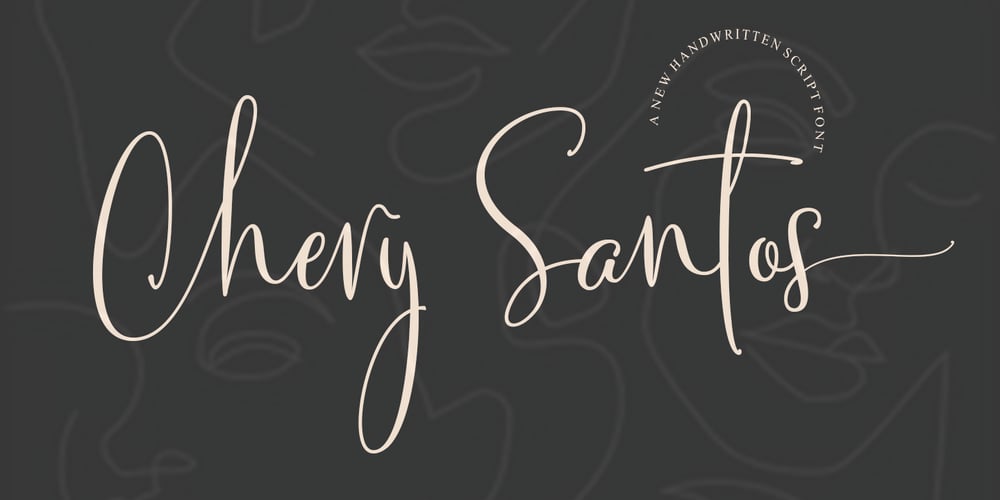
Chery Santos Font Family was designed by Muhammad Nasir and published by Aqeela Studio. Chery Santos contains 1 styles and family package options. Chery Santos feels equally charming and elegant. It looks stunning on wedding invitations, thank you cards, quotes, greeting cards, logos, business cards and every other design which needs a handwritten touch.This font is PUA encoded which means you can access all of the glyphs and swashes with ease! It features a varying baseline, smooth lines, gorgeous glyphs and stunning alternates.Chery Santos is coded with Unicode PUA, which allows full access to all additional characters without having any special design software. Mac users can use Font Book, and Windows users can use Character Map to view and copy any of the additional characters to paste into your favorite text editor / application.